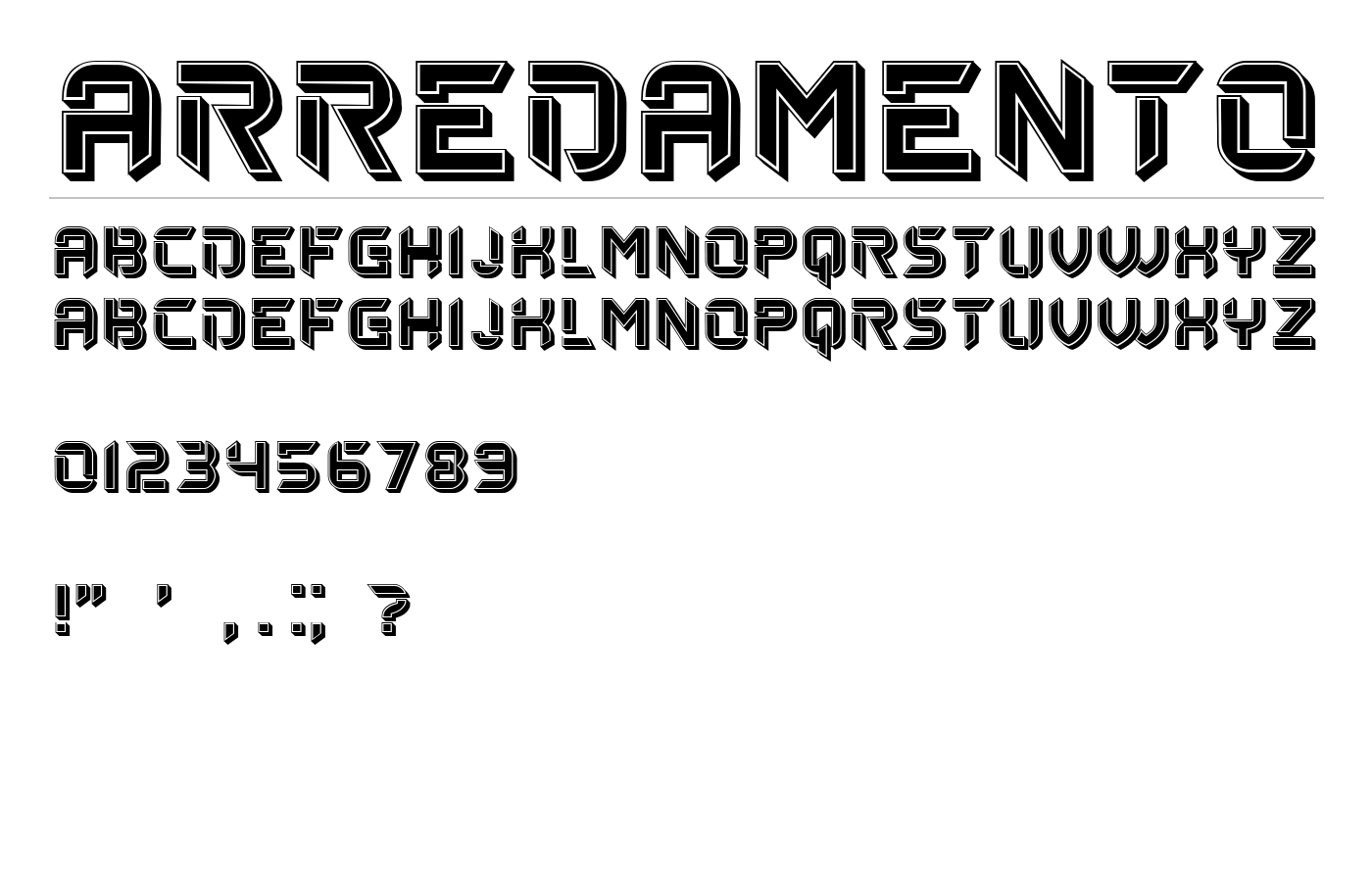
Arredamento is a bold, geometric display font with a strong futuristic and architectural vibe. Its sharp angles, layered dimensionality, and unique cut-out details create a dynamic, eye-catching style perfect for headlines, logos, and creative branding that aims to convey modernity and innovation. This font excels in designs where strong visual impact and a distinctive personality are key.
Arredamento Font
About Arredamento Font
| Font family | Arredamento Font |